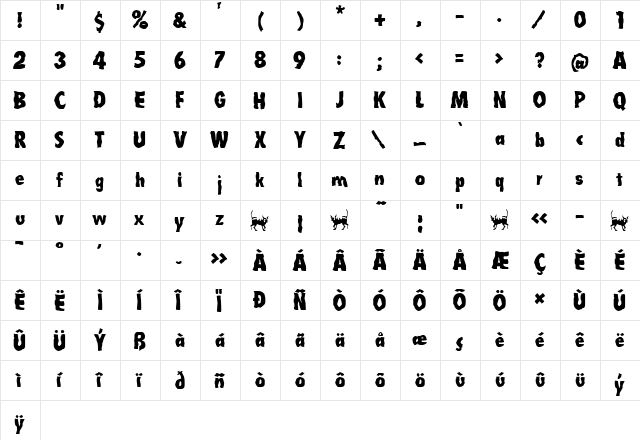
LTLaika Medium
Design Context for LTLaika Typeface
LTLaika is a composed and adaptable typeface that performs quietly and consistently across a wide range of design contexts.